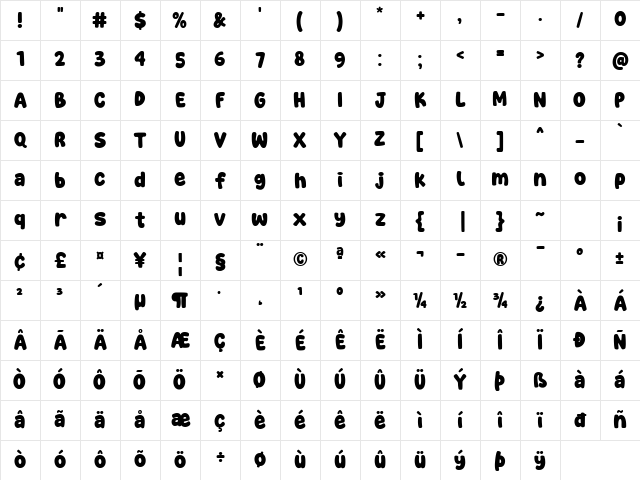
Super Lobster Regular
Design Context for Super Lobster
Super Lobster is a composed and adaptable typeface that performs quietly and consistently across a wide range of design contexts.